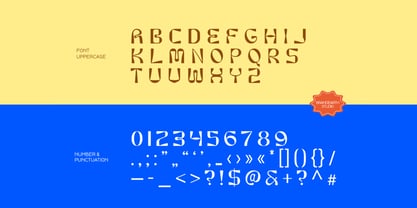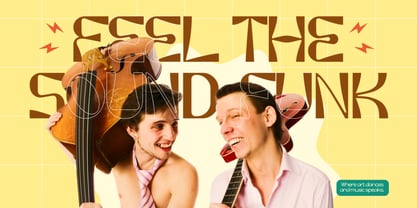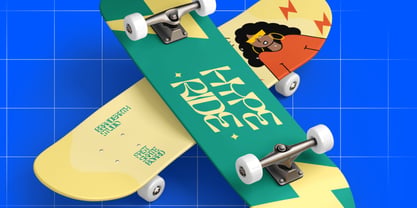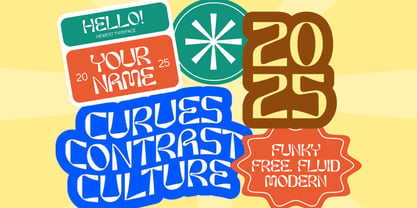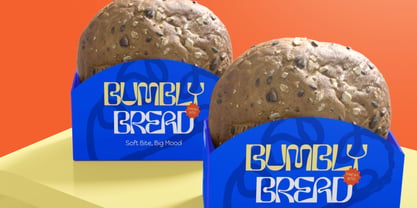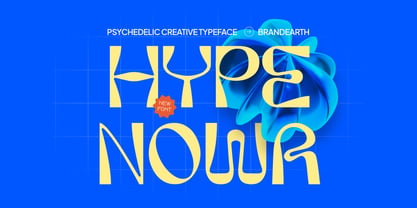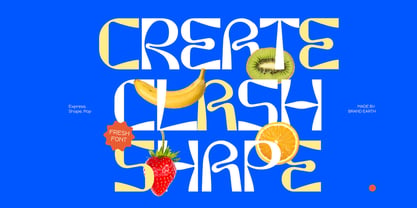
Hype Nowa
by Brandearth
The Hype Nowa Font Family was designed by Moch Rasjid Wiyono and published by Brandearth. Hype Nowa contains 1 styles. More about this family
Hypenowa is a psychedelic creative display typeface built with bold, fluid letterforms and playful distorted shapes that create a strong visual impact. Each character features unconventional curves, stretched proportions, and retro-inspired geometry that gives the font a funky, expressive personality. Relevance and Use Cases is perfect for posters, album covers, event promotions, fashion branding, creative packaging, social media graphics, youth campaigns, streetwear labels, music festivals, editorial covers, and bold visual identities that require playful and eye-catching typography.
Designers: Moch Rasjid Wiyono
Foundry: Brandearth
Hype Nowa